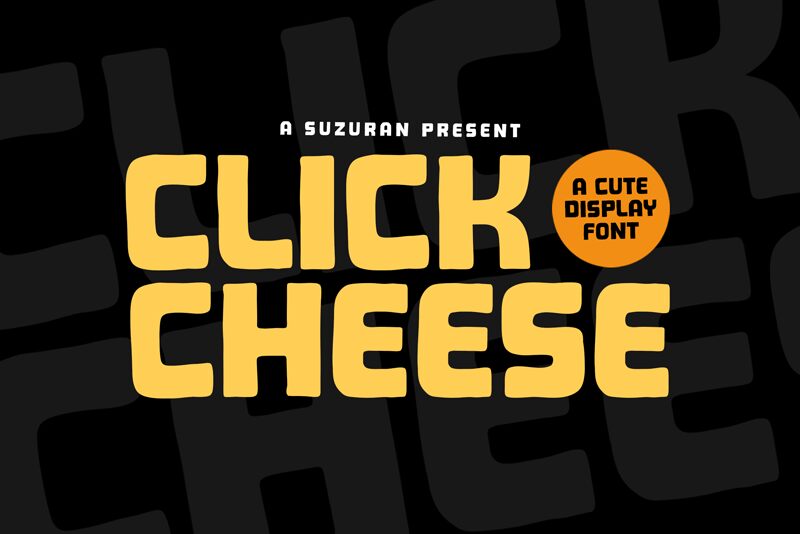
Click Cheese
Click Cheese font by Khurasan is a cartoon display typeface with absolutely captivating characters. The font’s thickness, thanks to bold strokes, gives it the loud presence needed for both printed and digital designs. Each letter is geometric and blocky for a modern look, yet their combination brings it all together into an impactful retro sight.
Decorate all design projects you need especially those related to kids including books, games, posters, and flyers. Experience this free font in branding ideas for logos or packaging (toys for example). Engage adults too through advertisements or web visuals!